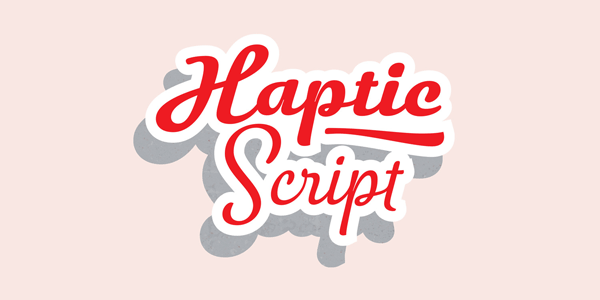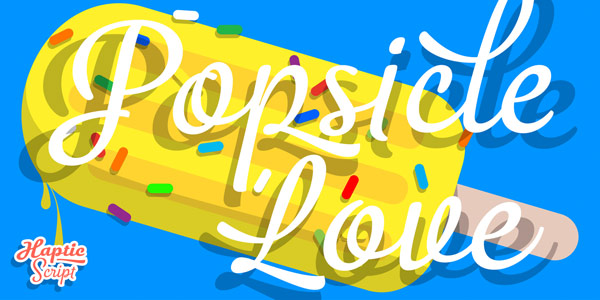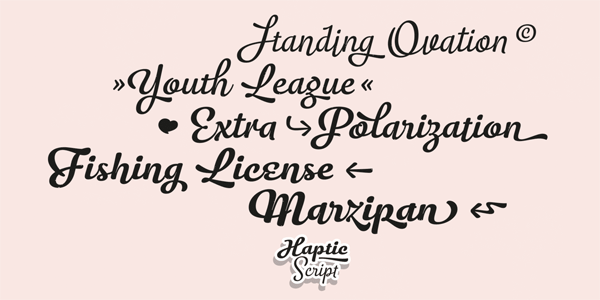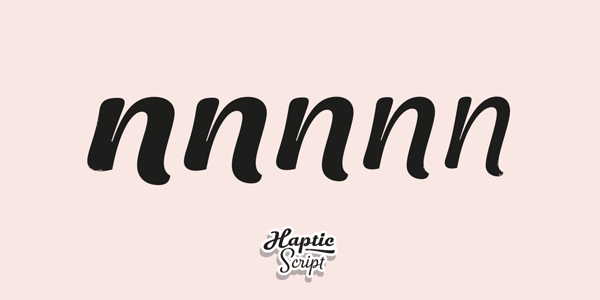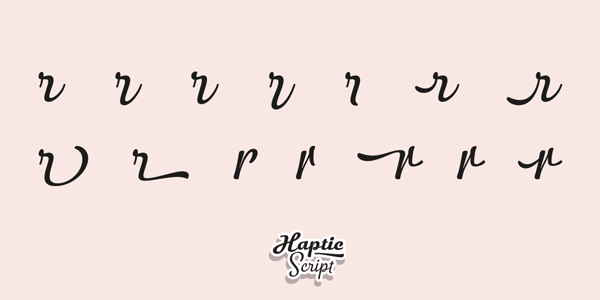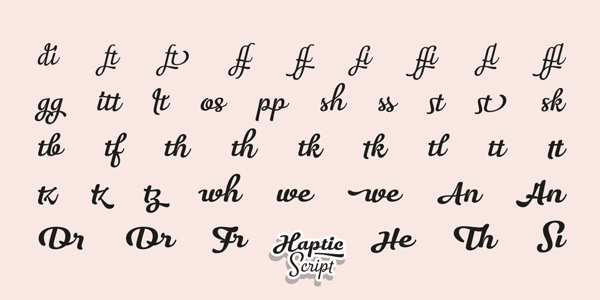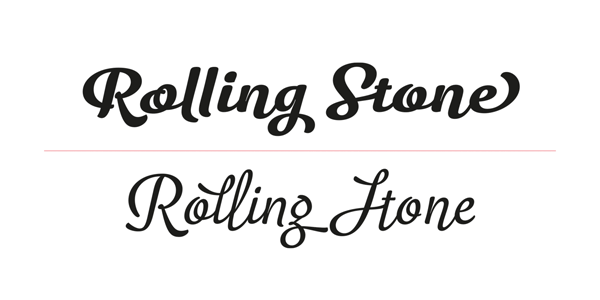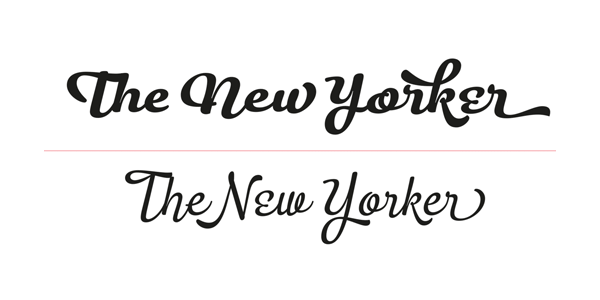
The Haptic Script font, a connected brush script type family with a warm, personal, and soft look.
Henning Hartmut Skibbe is a graphic and type designer based in Potsdam, Germany. In 2014/2015, he has developed Haptic Script, a connected brush script font family with a warm, personal, and soft look.
The family consists of five weights ranging from Light to Black. The German designer has created Haptic Script as companion and extension to the Haptic sans-serif family. Henning Hartmut Skibbe developed this decorative script family with up to 14 variations for each glyph. The extensive character set is equipped with over 40 ligatures as well as different swashes. They give your titles an individual look.